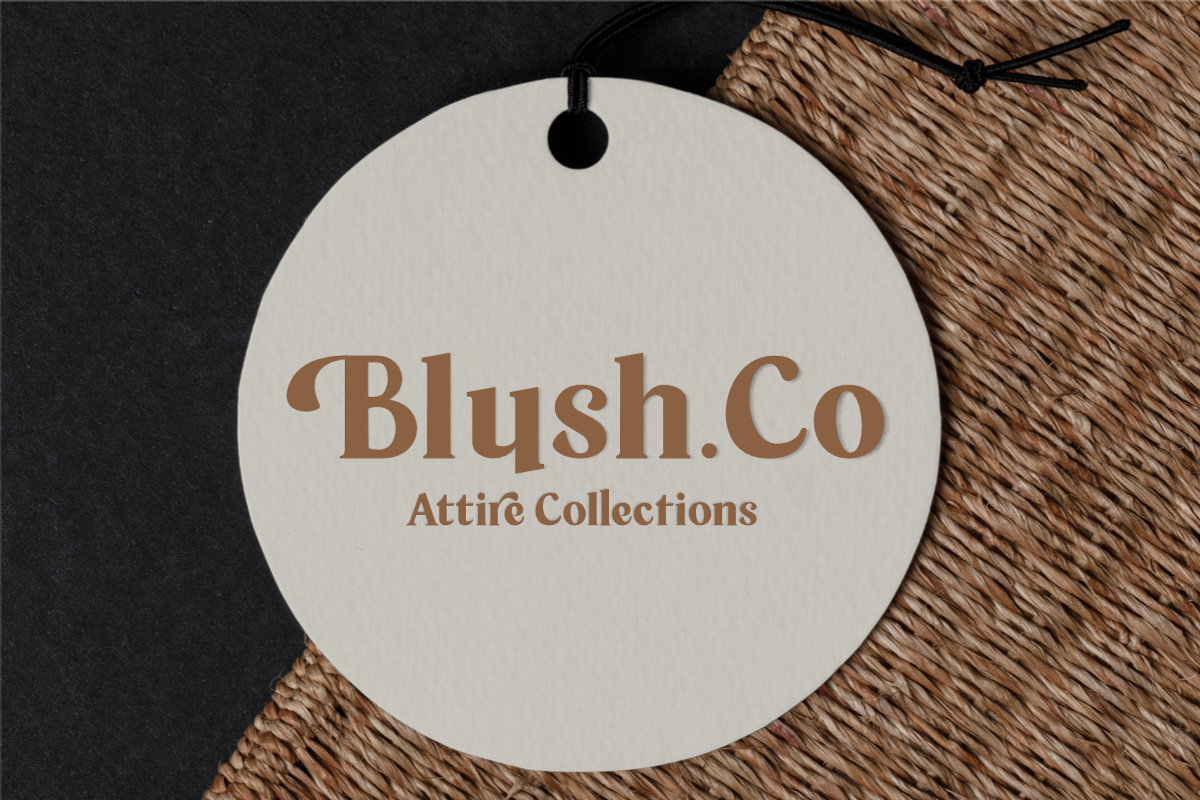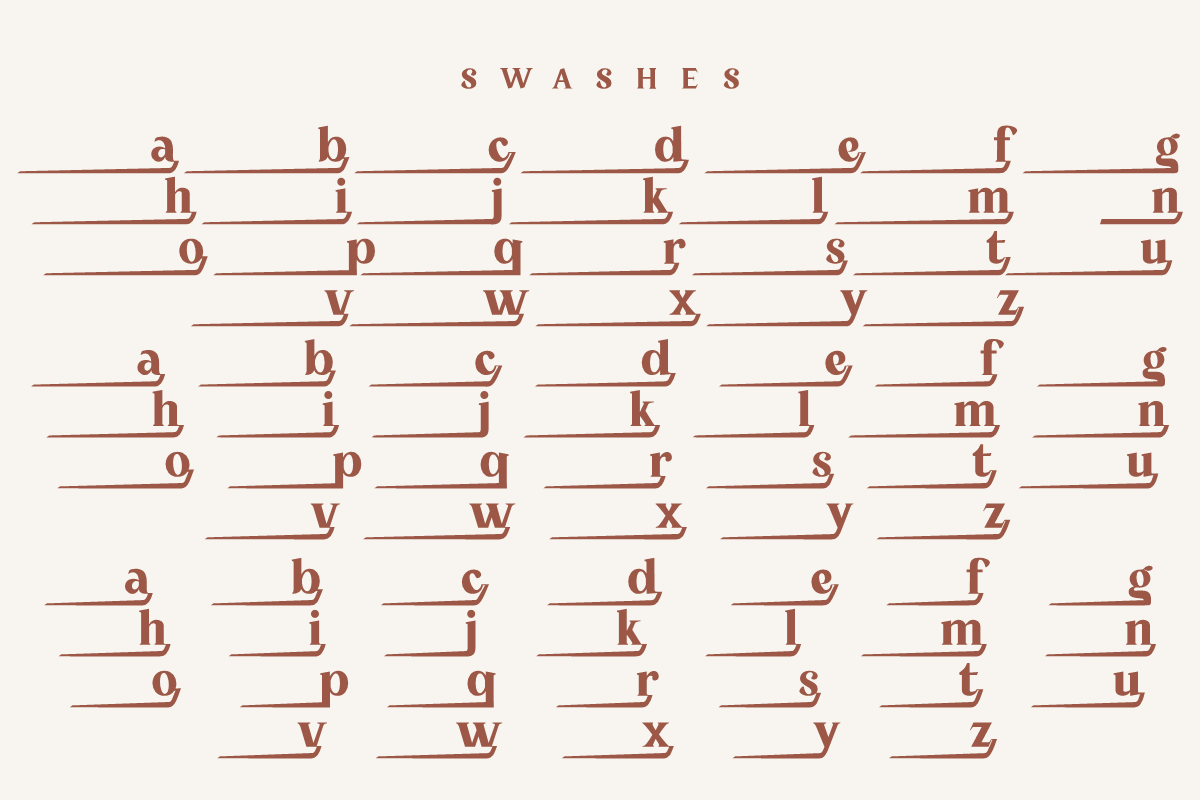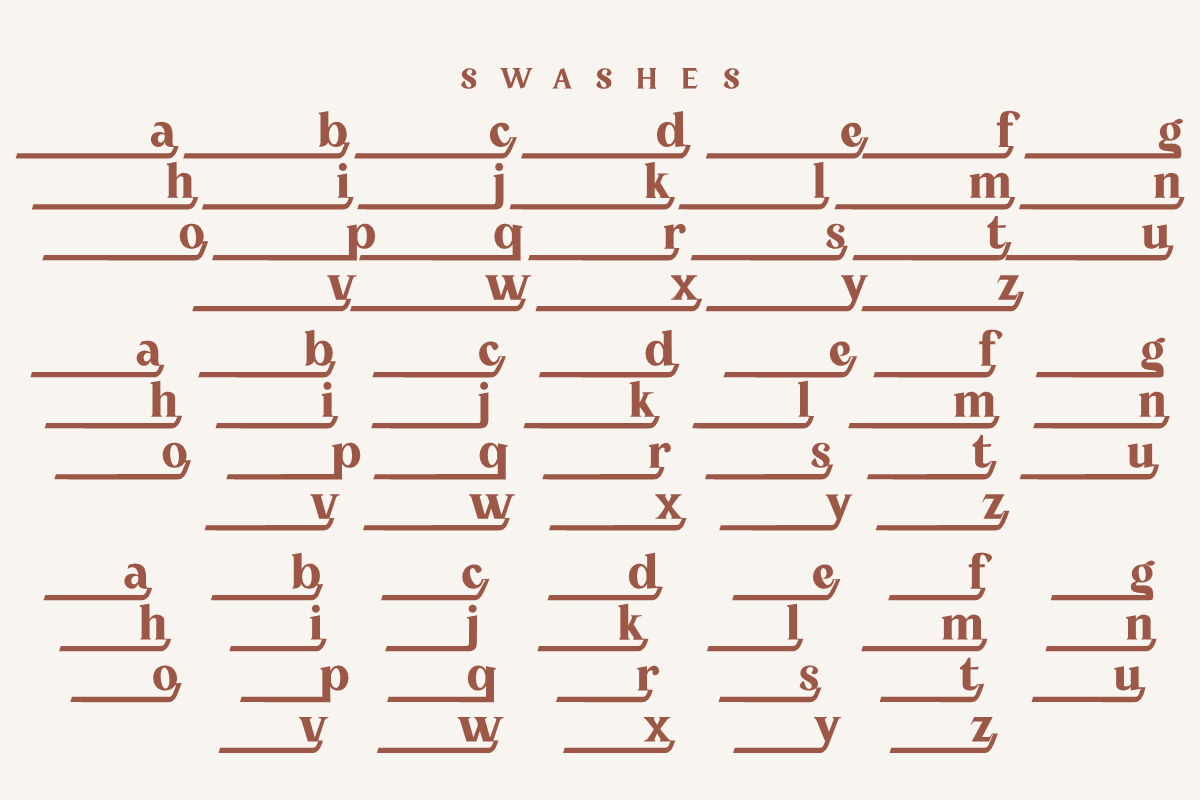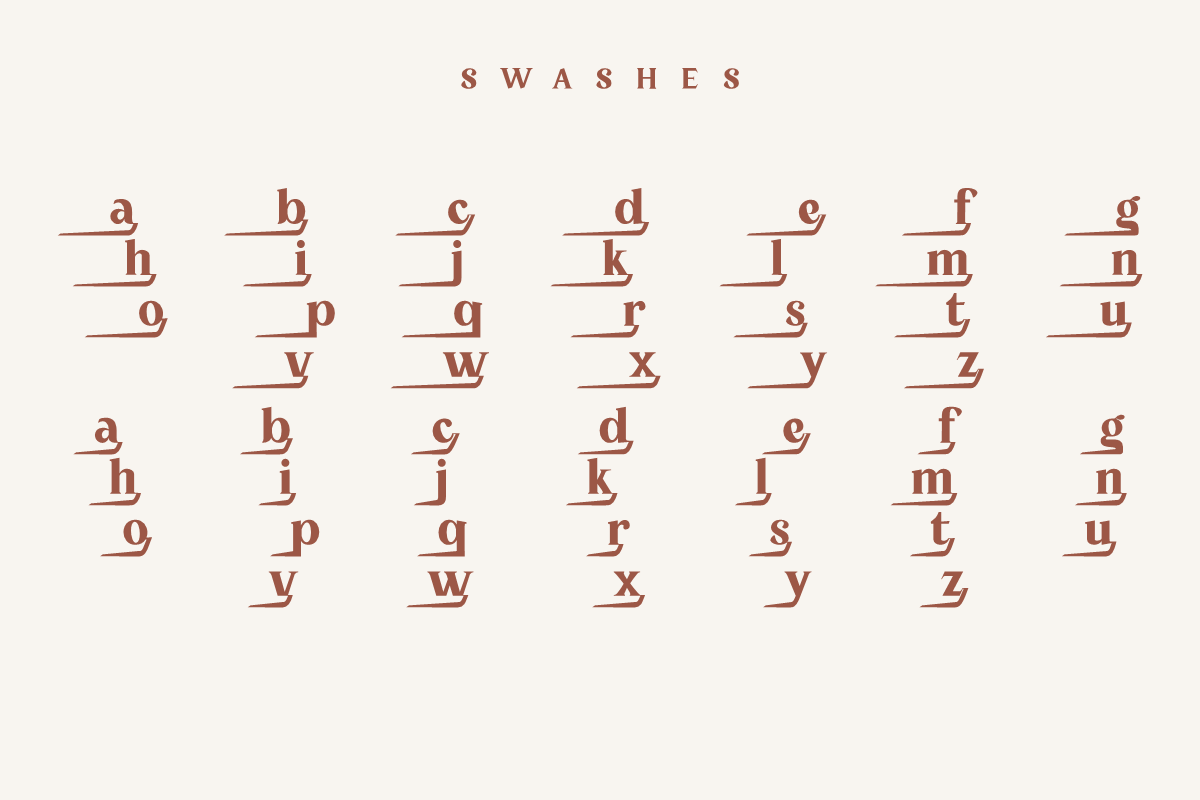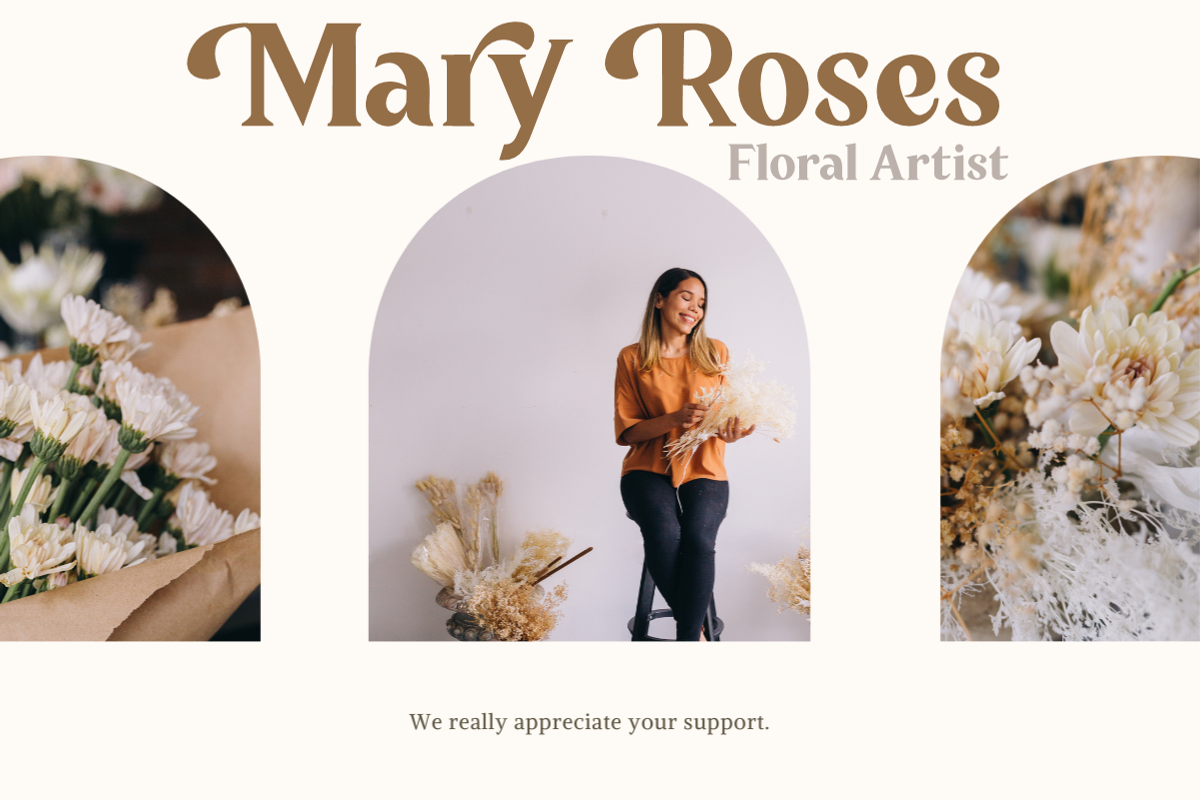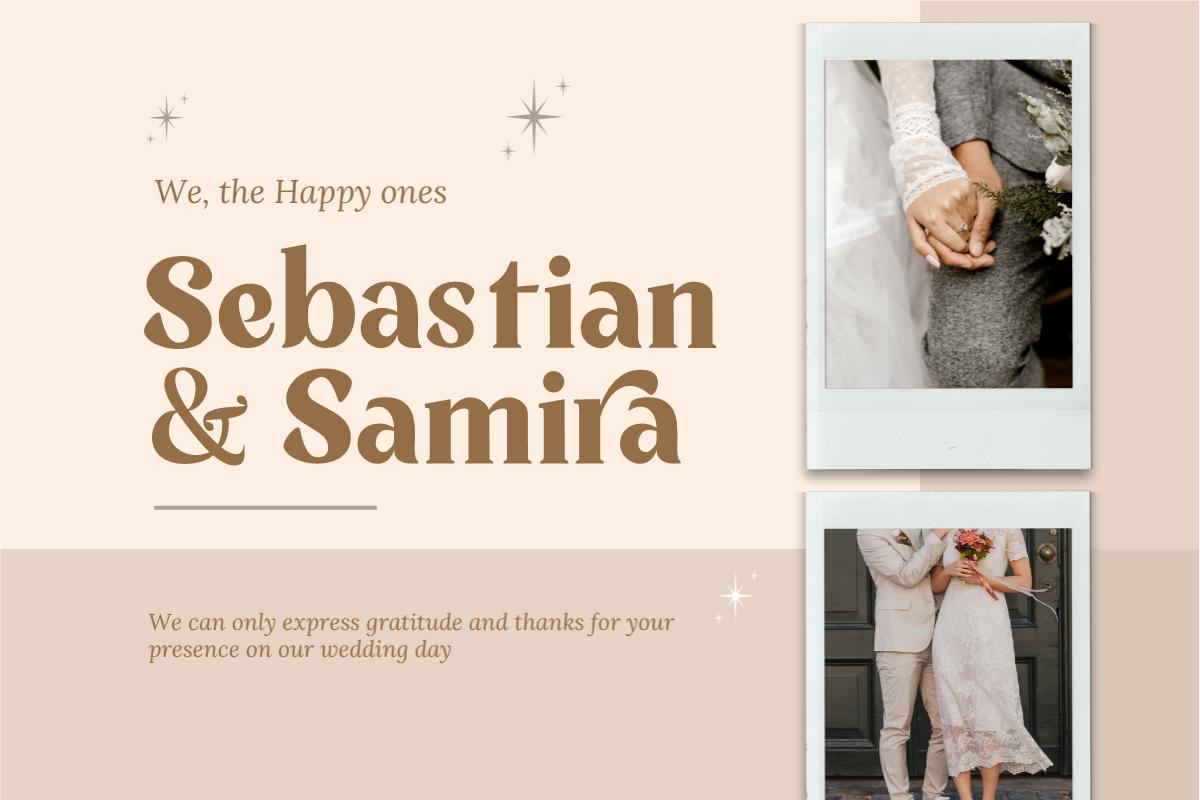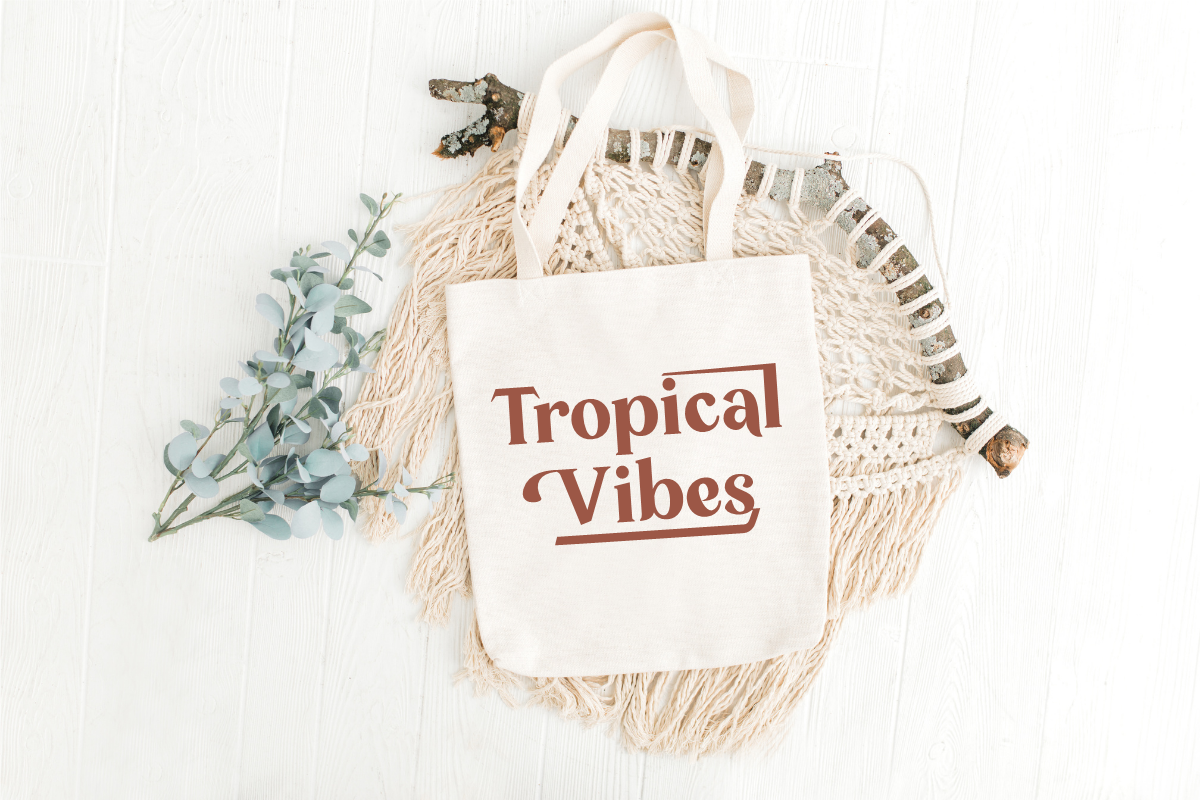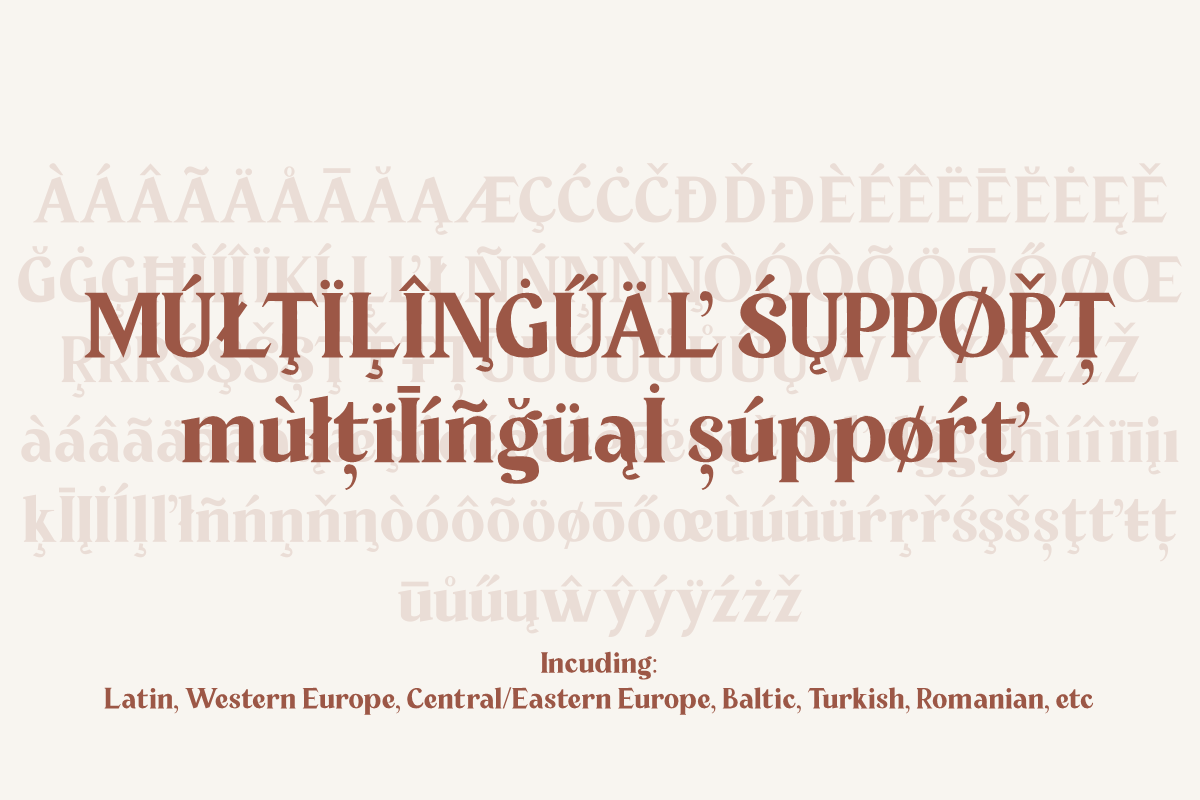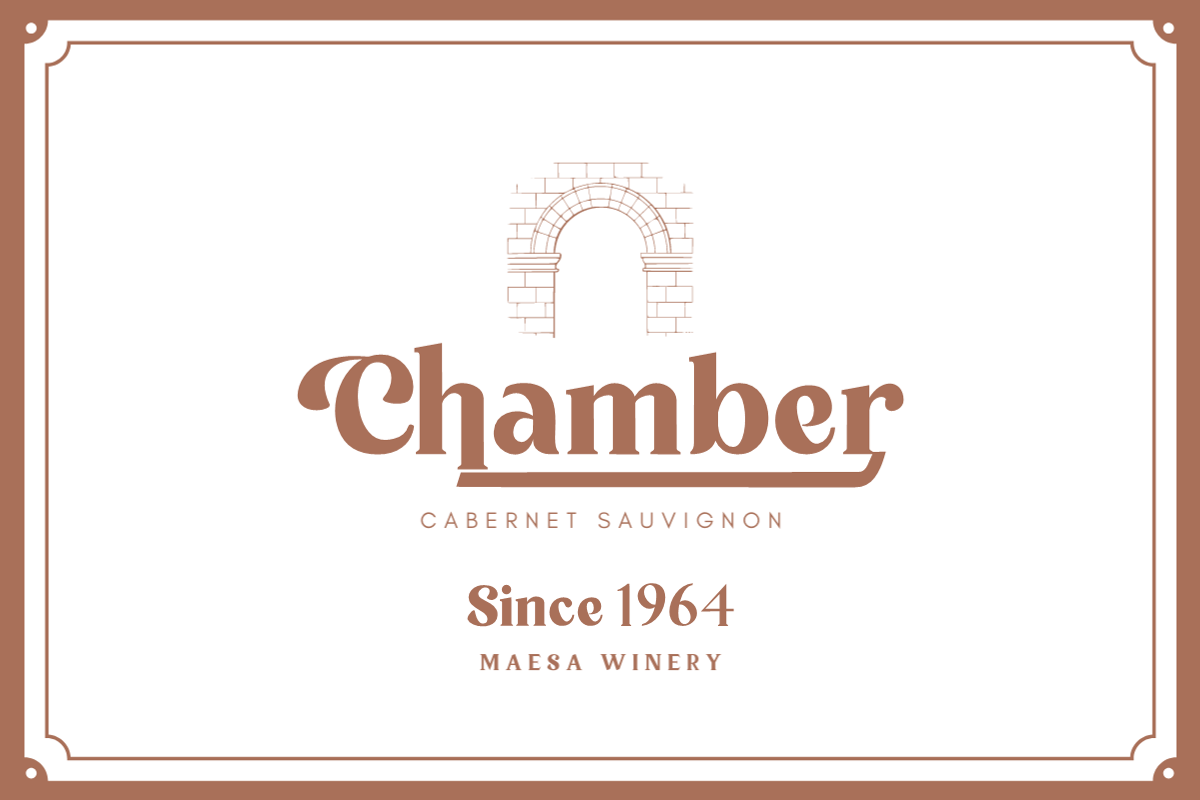
Tropical County - Modern Serif
Introducing Tropical County - Modern Serif font with many alternates and washes. This font is very suitable to be applied in various aspects of design, Also it’s perfect for logos, branding, title, social media posts, advertisements, product packaging, product designs, label, photography, watermark, special event, magazine, web designs, etc.
Tropical County (Uppercase, Lowercase)
Swashes
Multilingual Support, including Latin, Western Europe, Central/Eastern Europe, Baltic, Turkis, Romanian, etc.